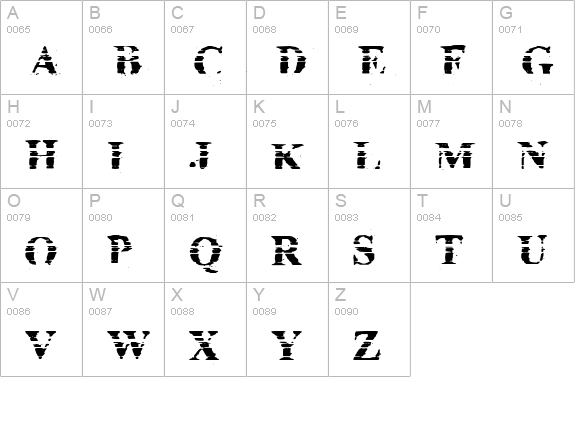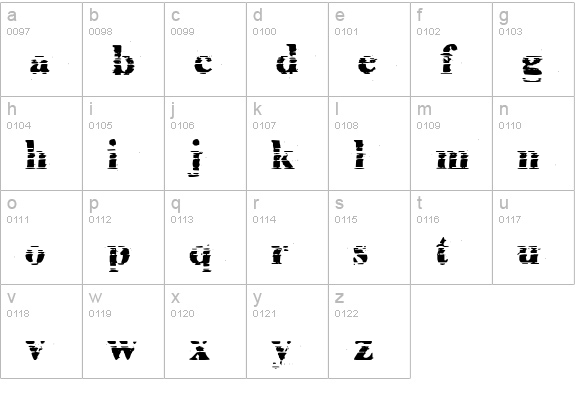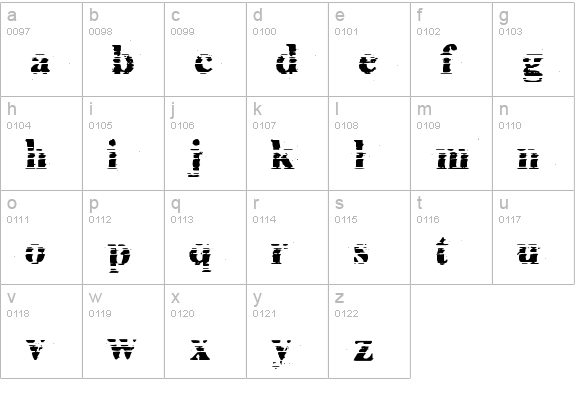
Cheap Ink killed my Printer Font Details
Introducing the Cheap Ink killed my Printer font, a playful and whimsical typeface that adds a touch of fun and creativity to your designs. This unique font features quirky characters and a hand-drawn aesthetic that is sure to make your projects stand out. Despite its name, Cheap Ink killed my Printer font is anything but cheap in quality. With its bold and eye-catching appearance, this font is perfect for headlines, posters, branding, and more. Its versatility allows for use in both digital and print designs, making it a must-have addition to your font collection. Best of all, Cheap Ink killed my Printer font is available for free download at FontsMarket.com. So go ahead and grab this fantastic font today to add a touch of personality to your next project!